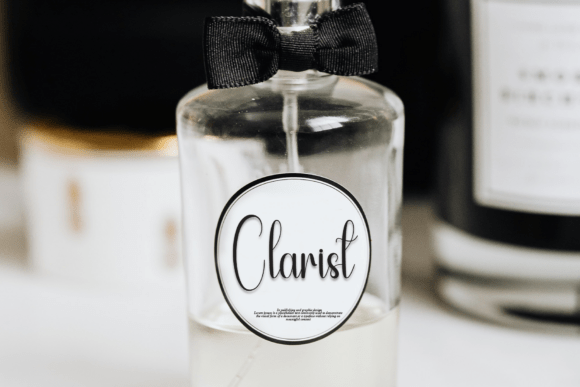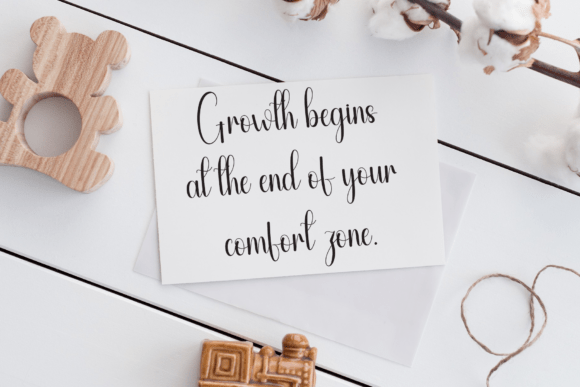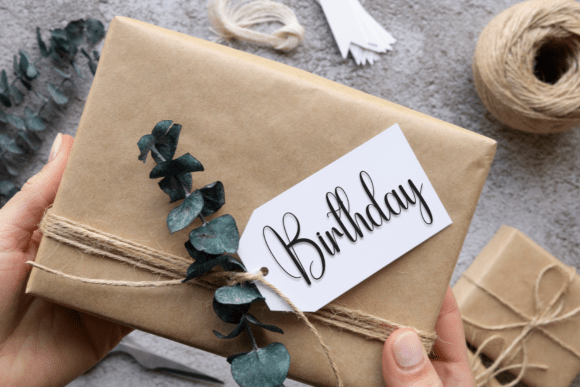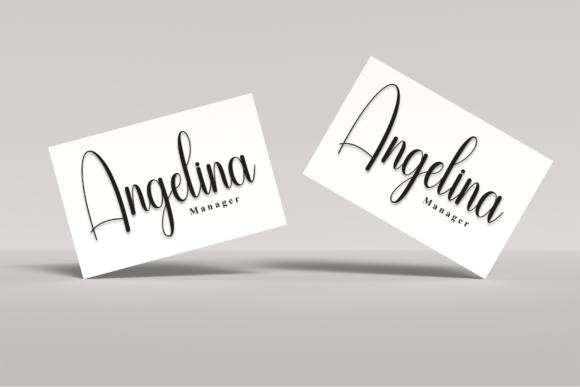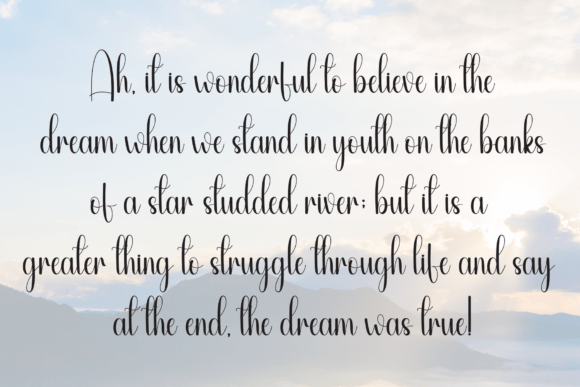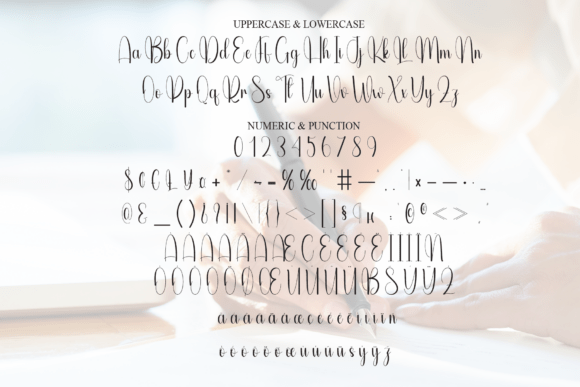
The Perfect Stroke: Discovering the Beauty of Autography Font
Have you ever found yourself in a creative flow, surrounded by papers, pencils, and a dash of inspiration? The words start to flow, and your handwriting transforms into a beautiful, flowing script that captures the essence of your thoughts. It’s moments like these that designers and artists live for – the freedom to express themselves through the perfect stroke. And that’s exactly what the Autography Font is all about – capturing elegance and playfulness in every letter.
As a stylish handwritten script font, Autography brings a personal, charming touch to any project, from invitations to branding and social media. Its natural rhythm and flowing curves make it a valuable asset for designers looking to add warmth, sophistication, and creativity to their work. Whether you’re a seasoned pro or just starting out, the Autography Font is sure to inspire your next design project.
Autography Font Key Features
- Unique Characteristics: Autography Font features a unique, handwritten style with varying line widths and subtle imperfections, giving it a personal and creative touch.
Autography Font Review
As a designer, I’ve had the chance to work with a lot of fonts, and I’ve got to say that Autography Font is a unique one. ✨ One of the things I love about it is its expressive and elegant script style. It’s perfect for adding a touch of sophistication to any design, whether it’s a wedding invitation or a luxury brand’s logo.
Another thing that works well in Autography Font is its versatility. ✨ It comes in multiple weights and styles, making it easy to use in a variety of contexts. From the lightest, most delicate weights to the boldest, most dramatic ones, Autography Font has got you covered.
However, I do have a few reservations about Autography Font. ⚠️ One of the main issues I have is with its limited language support. If you’re working on a project that requires text in multiple languages, you might find yourself limited by Autography Font’s capabilities.
Another thing that’s worth mentioning is that Autography Font can be a bit difficult to read in smaller sizes. ⚠️ It’s a beautiful font, but it can be overwhelming if it’s not used carefully.
Overall, I’d say that Autography Font is a great choice for designers who want to add a touch of elegance and sophistication to their work. Just be mindful of its limitations, and you’ll be all set.
- Expressive and elegant script style
- Multiple weights and styles available
- Perfect for luxury brands, wedding invitations, and other high-end designs
- Limited language support
- Can be difficult to read in smaller sizes
Autography Font: A Practical Application Guide
The Autography Font is perfect for:
- Crafting a unique and personal logo.
- Adding a handwritten touch to wedding invitations.
- Creating a distinctive brand identity.
Tips for Getting the Most Out of Autography Font
For the best results, use Autography Font in conjunction with bold or italic text to create visual interest.
Experiment with different font sizes and colors to match your design’s style.